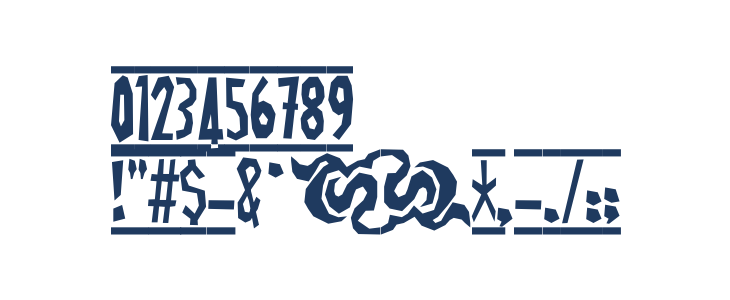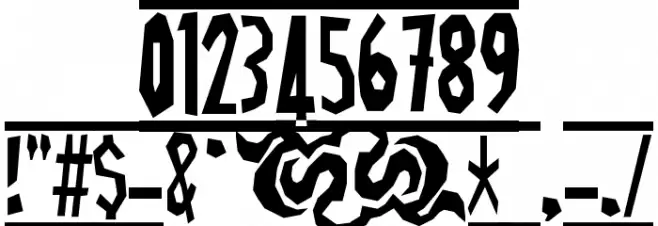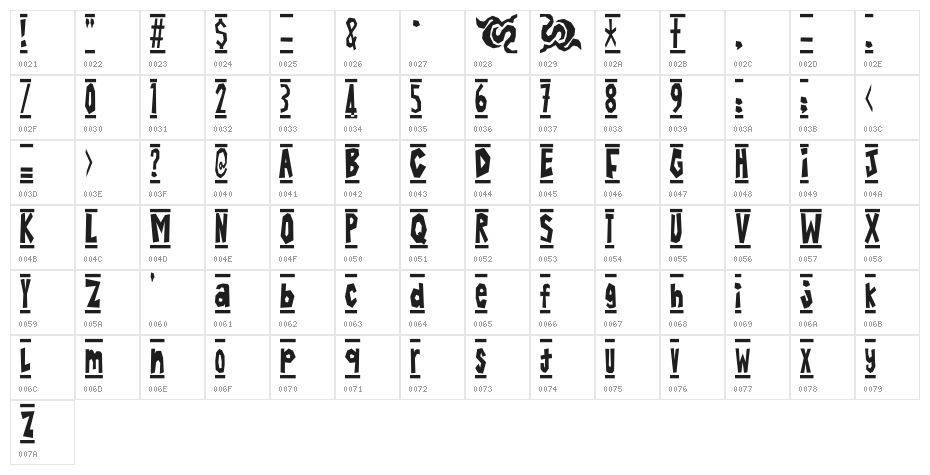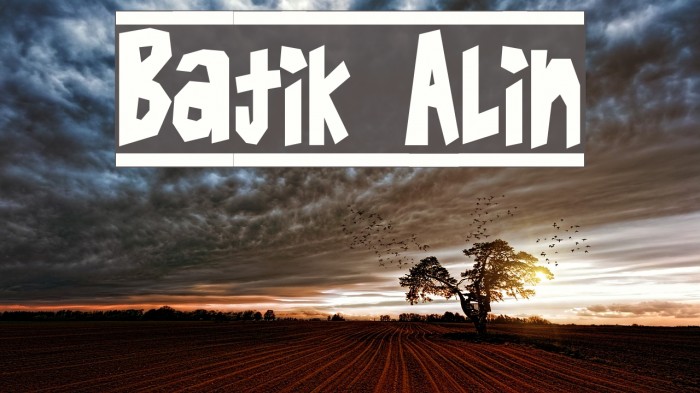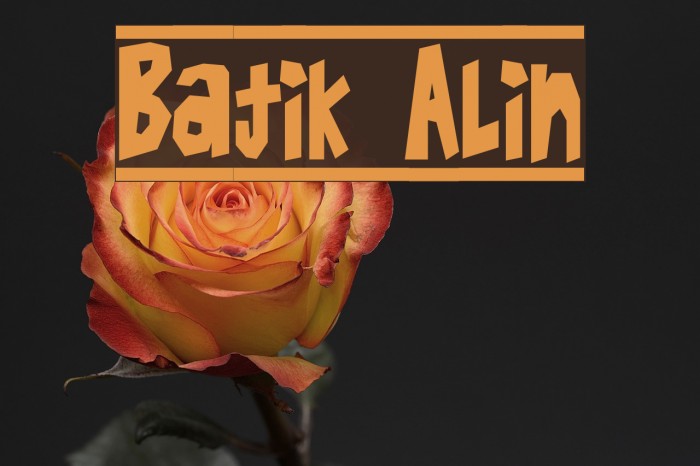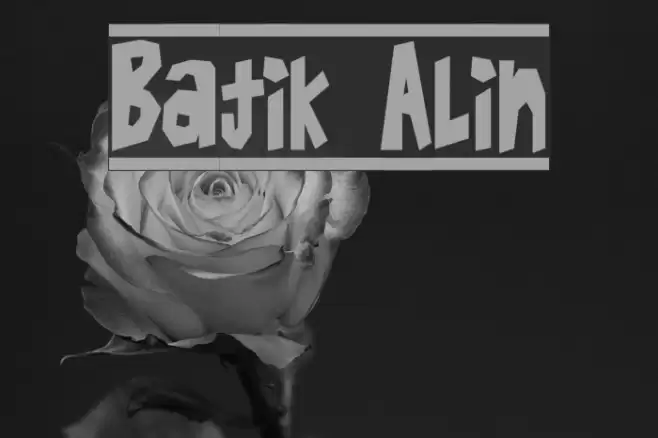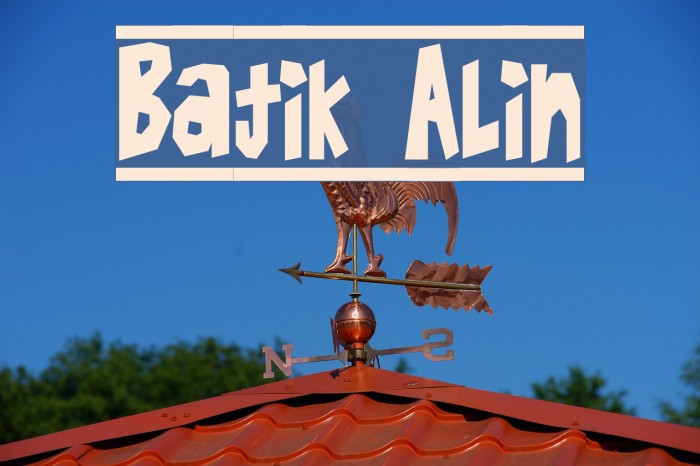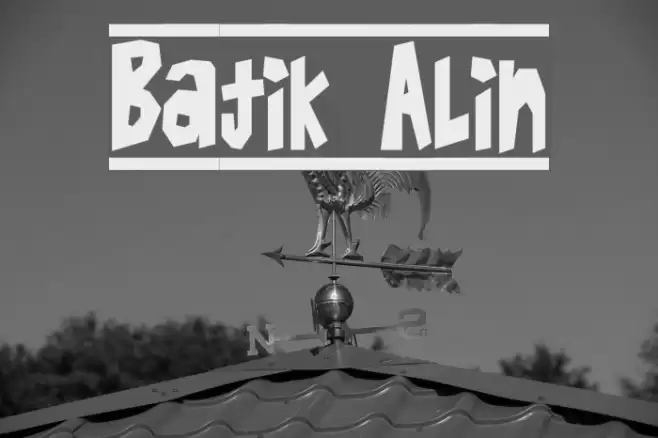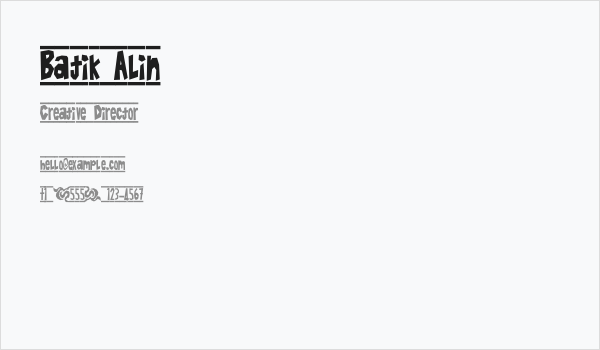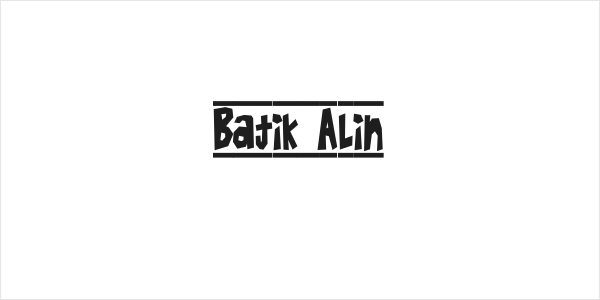
Batik Alin Font
Batik Alin Description
This font features a bold and striking design with a distinctly geometric and angular style. Each character is crafted with sharp edges and a dynamic form, creating a sense of movement and energy. The uppercase and lowercase letters maintain a consistent aesthetic, with unique variations that add character and flair. The numbers and special characters follow the same bold and angular theme, ensuring a cohesive look across all text elements. This font's strong visual presence makes it ideal for eye-catching designs.
| Proposed Projects | Ideal for posters, album covers, branding, and any project requiring a bold, standout typeface. |